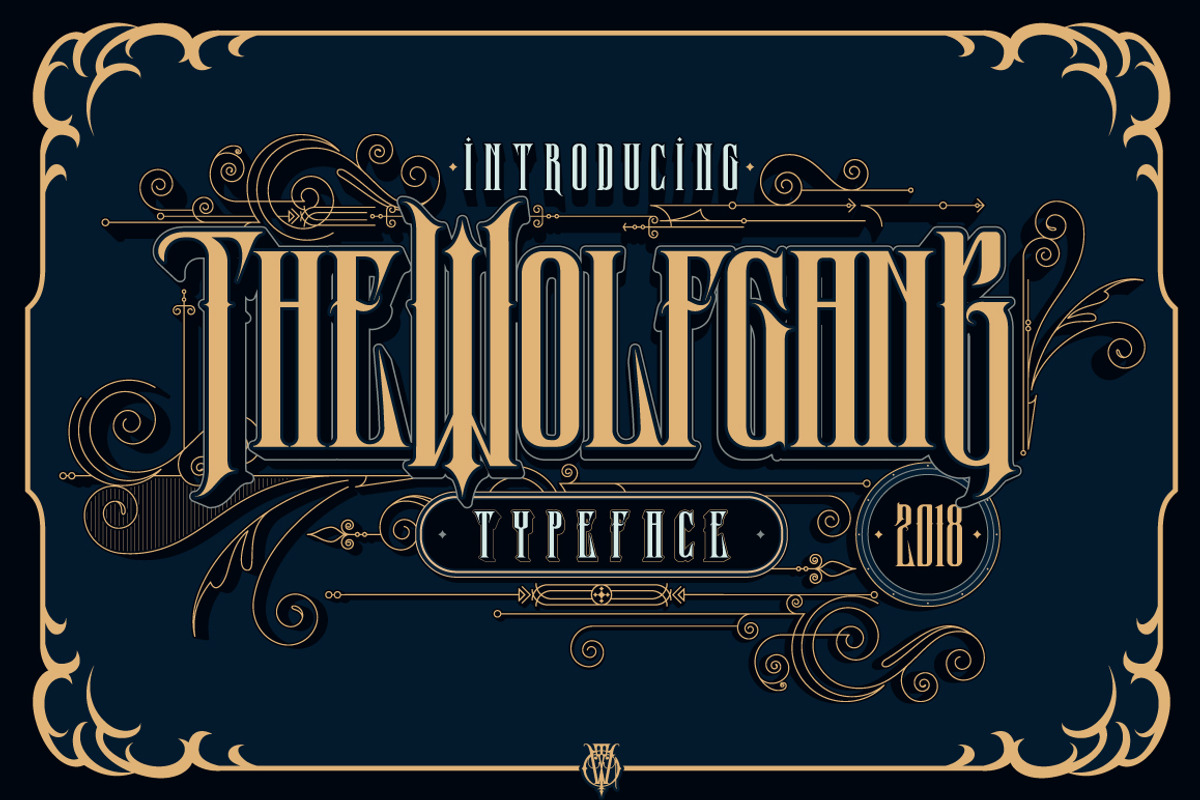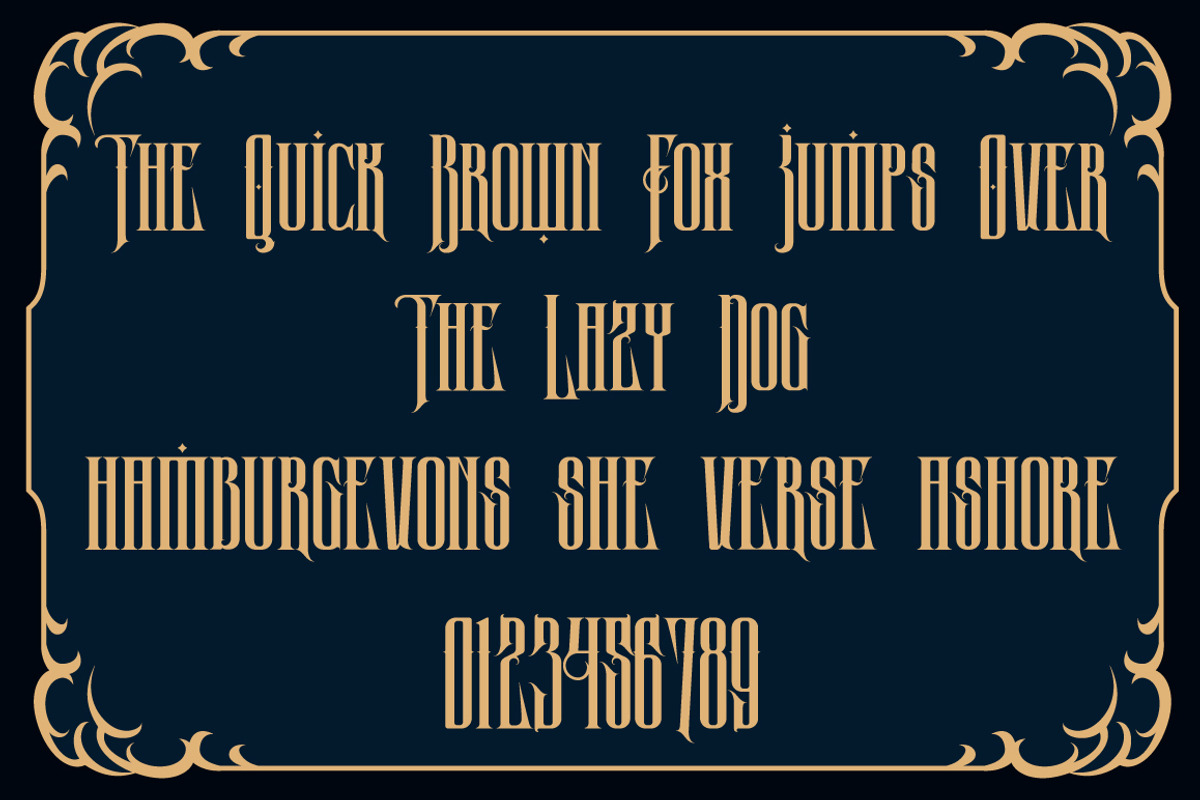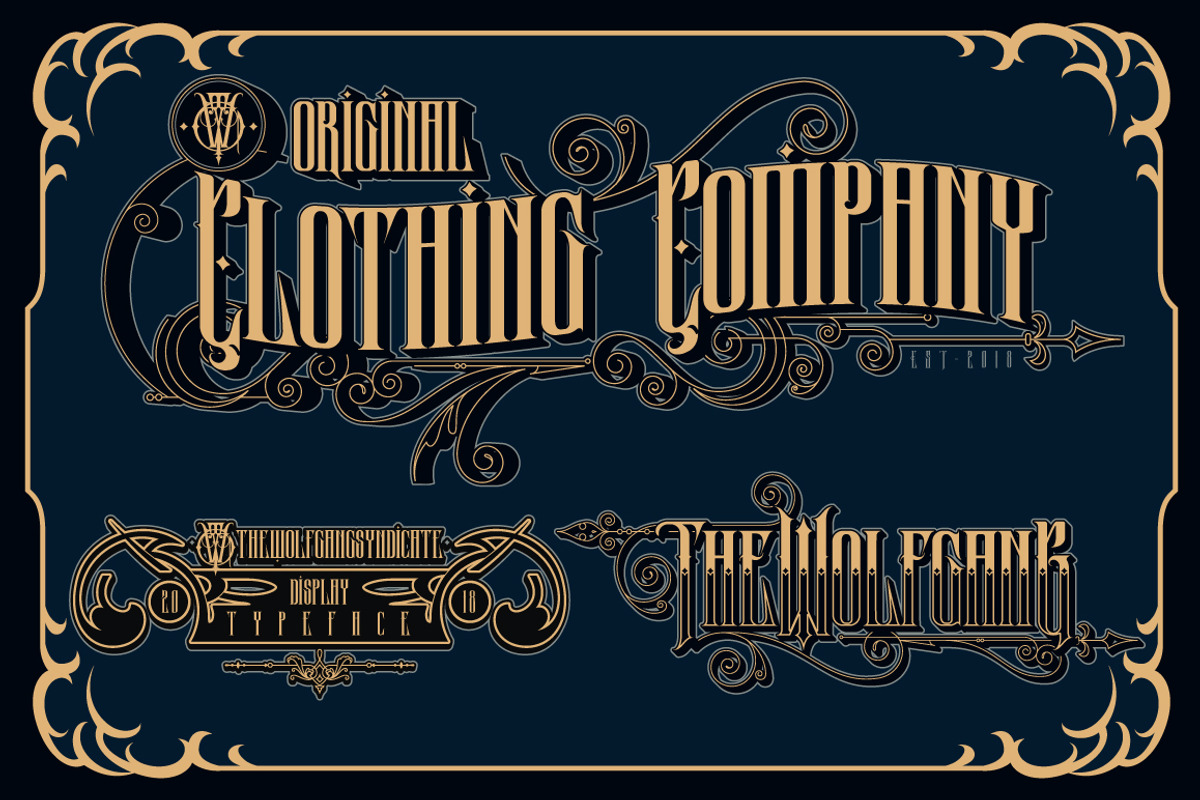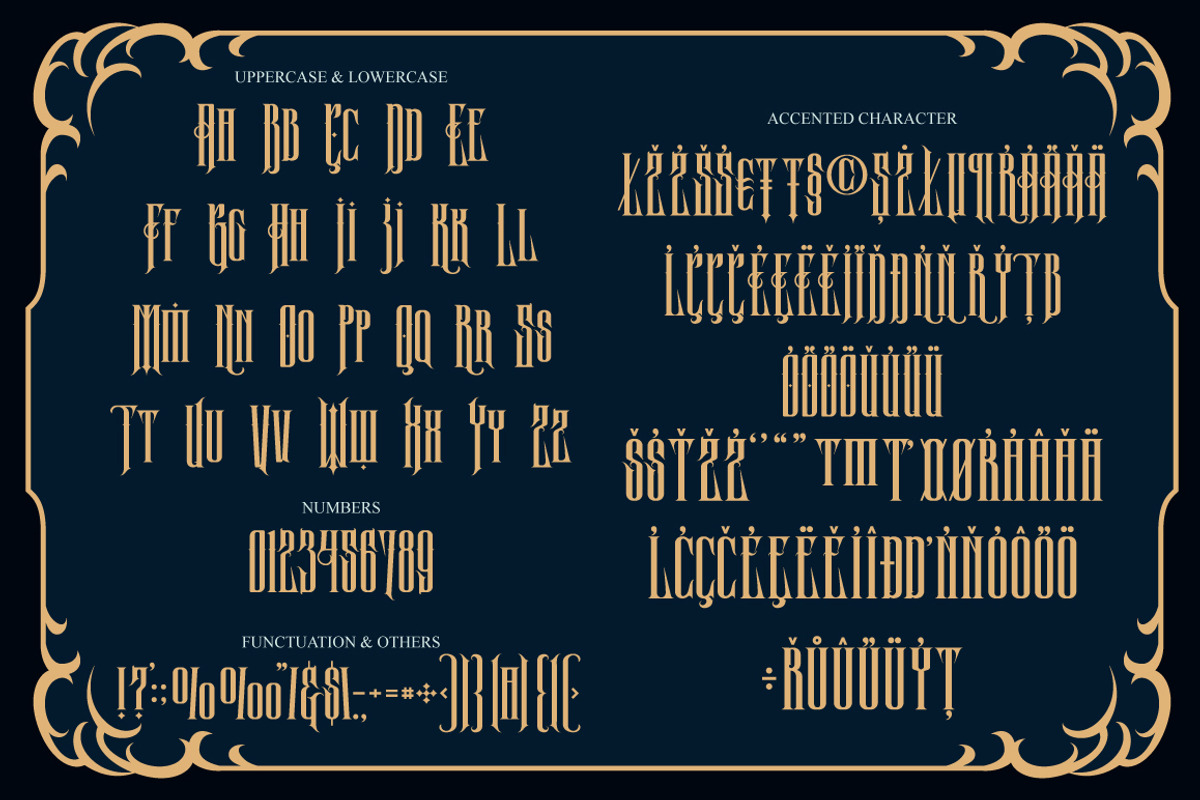
Wolfgang Typeface
Introducing a new Display font called wolfgang. wolfgang typeface is perfect for logo, quote, apparel and other creative applications.
Why Wolfgang Typeface is worth a look
Wolfgang Typeface by the-sastra fits naturally into Branding, posters, packaging, typography.